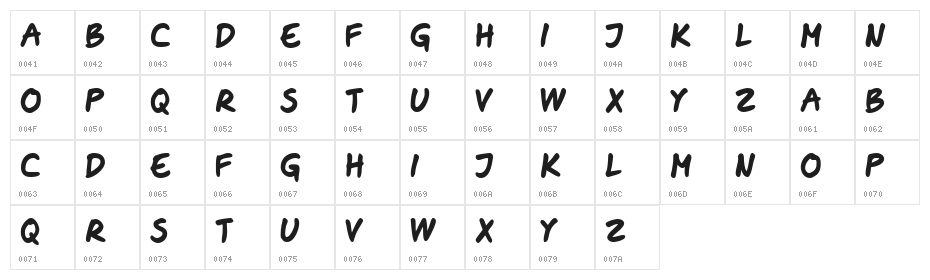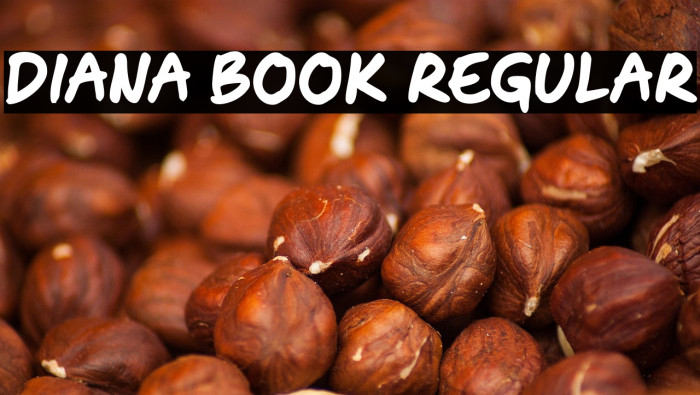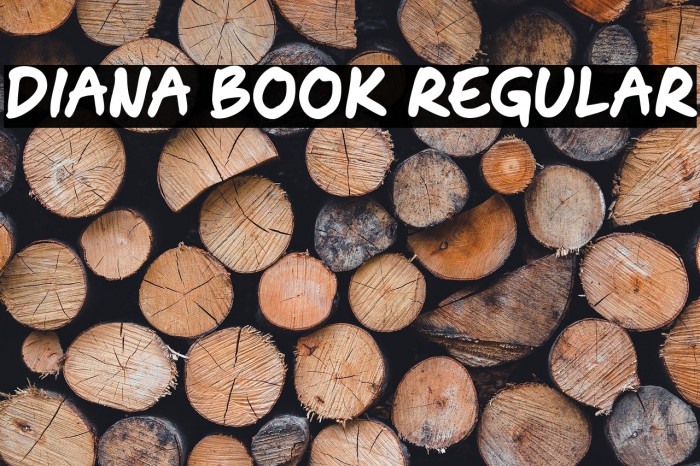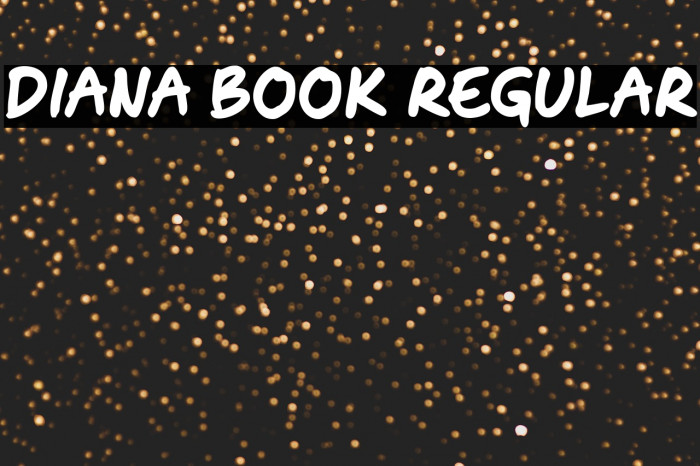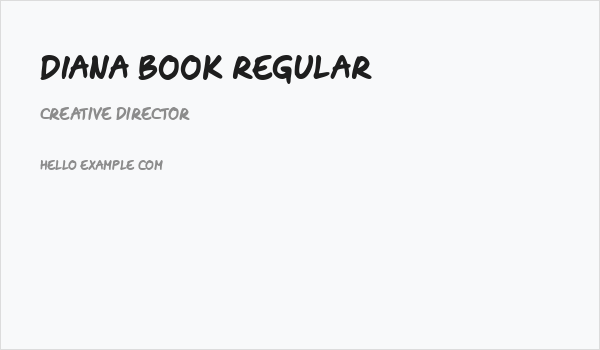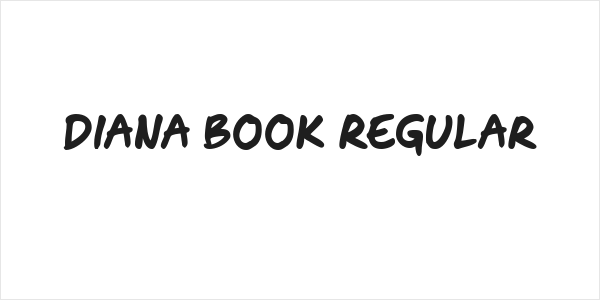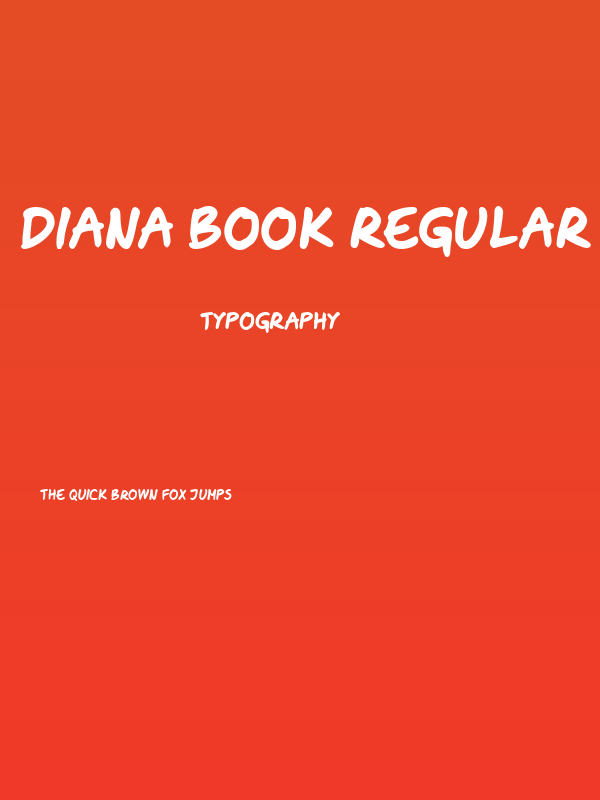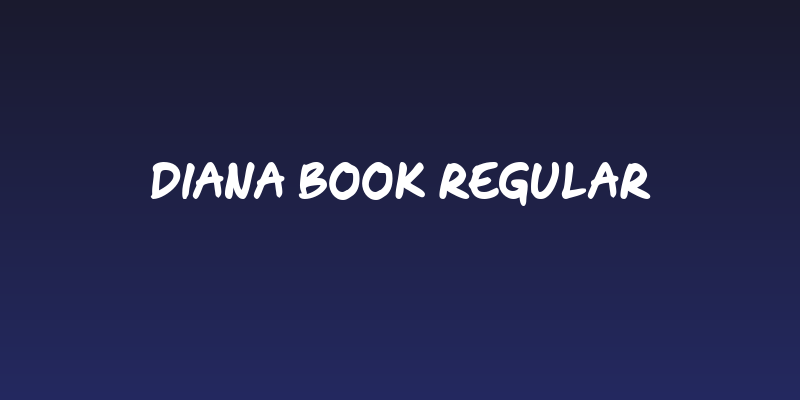
Diana Book Regular Font
Diana Book Regular Description
This font features a bold and playful handwritten style, characterized by its rounded and smooth letterforms. The strokes are consistent in thickness, providing a uniform appearance across all characters. The uppercase letters are slightly larger than the lowercase, maintaining a balanced proportion. The overall design is casual yet legible, making it suitable for a variety of informal applications. The characters are closely spaced, creating a cohesive and compact look. This font exudes a friendly and approachable vibe, ideal for projects that require a personal touch.
| Proposed Projects | Ideal for greeting cards, children's books, casual branding, and social media graphics. |